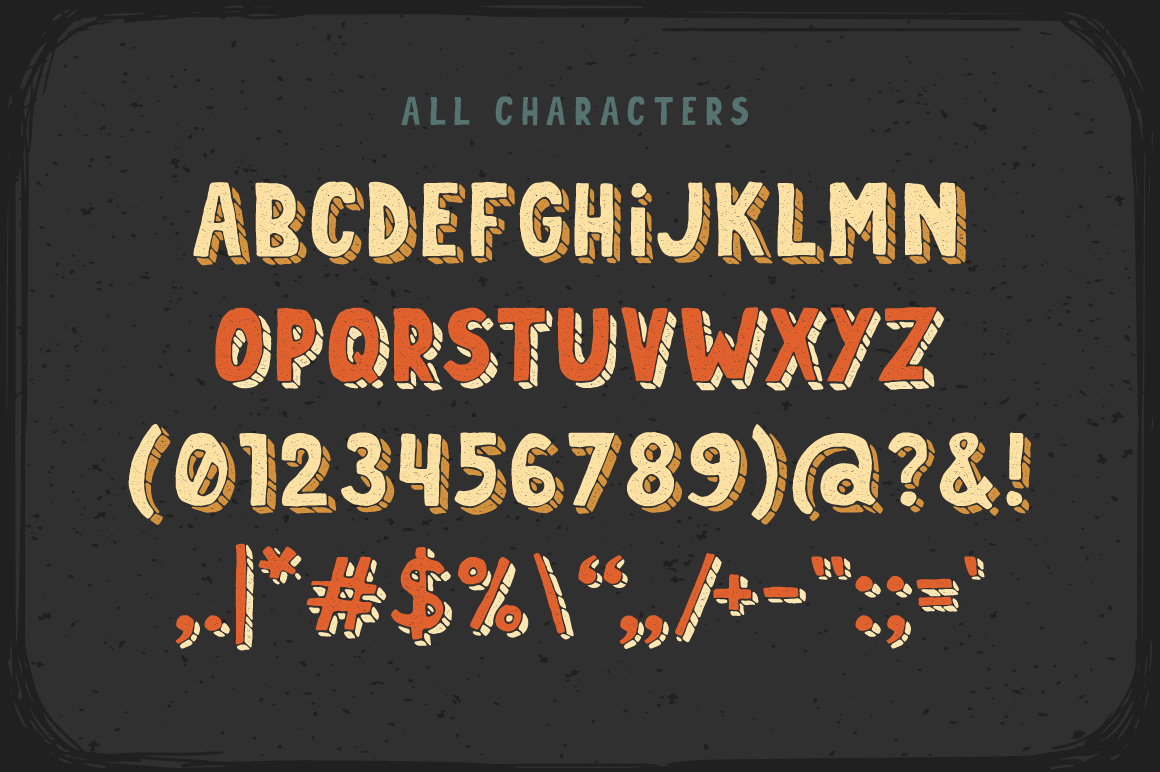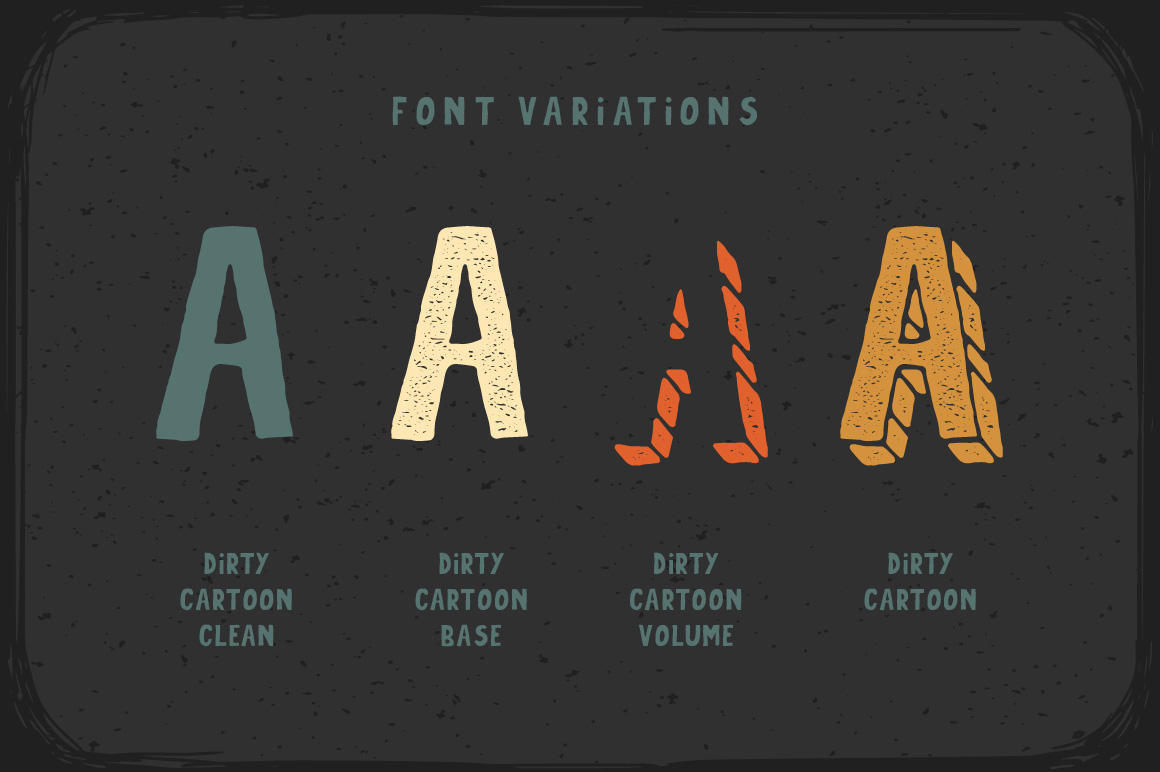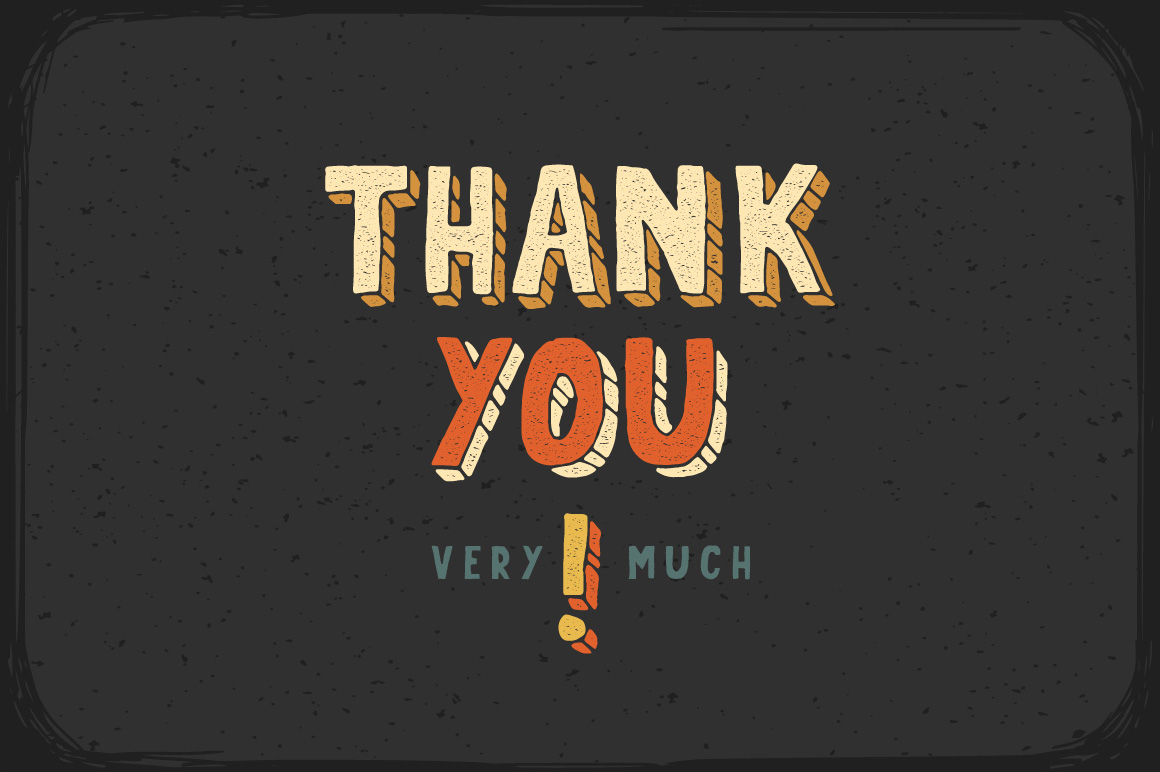
Get Ready to Unleash Your Inner Child with Dirty Cartoon Font
Have you ever found yourself doodling in a notebook, letting your imagination run wild with cartoons and comics? I know I have, and it’s amazing how a simple doodle can transport us back to a time of carefree creativity. As designers, we often strive to tap into that same sense of playfulness in our work, and that’s exactly what the Dirty Cartoon Font is designed to do.
This charming set of hand-drawn fonts is perfect for adding a touch of whimsy to your designs. With four unique styles to choose from, you can create a wide range of playful and engaging visuals that are sure to capture your audience’s attention. Whether you’re designing for a children’s brand, a comedy show, or simply a fun social media campaign, the Dirty Cartoon Font is a valuable tool that’s sure to bring a smile to your face.
Dirty Cartoon Font Key Features
- Font Style: A bold, distressed, and playful font with a cartoonish feel.
- Character Count: A comprehensive font with over 200 characters, including uppercase and lowercase letters, numbers, and punctuation marks.
- Unique Characteristics: The font’s distressed texture and bold lines give it a unique, hand-drawn feel, making it perfect for adding a touch of whimsy to designs.
Dirty Cartoon Font Review
At first glance, the Dirty Cartoon Font is a real showstopper ✨. Its bold, playful letters immediately grab your attention and make you want to use it for something fun and eye-catching. I love how it’s perfect for creating a carefree, youthful vibe, which is perfect for kid-friendly brands or projects.
Another strength of this font is its versatility ✨. It’s great for headlines, titles, or even short paragraphs of text. The font’s quirky nature makes it easy to pair with other fonts, allowing for endless design possibilities. I’ve used it for everything from comic strips to birthday invitations, and it always gets the job done.
- ⚠️ readability can be an issue at smaller font sizes, so be sure to use it sparingly in body text
- ⚠️ the font’s overall aesthetic may be too childish for more serious or professional projects
- ⚠️ some users may find the font’s irregularities distracting or difficult to read
Overall, I’d give the Dirty Cartoon Font 4 out of 5 stars. While it’s not perfect, its strengths far outweigh its limitations. With careful use, it’s a fantastic addition to any designer’s toolkit.
Dirty Cartoon Font is perfect for creating playful and whimsical designs, such as:
Children’s book covers and illustrations.
Party invitations and decorations.
Food and beverage branding.
Remember to use the font in moderation and balance it with other design elements to avoid overwhelming the viewer.